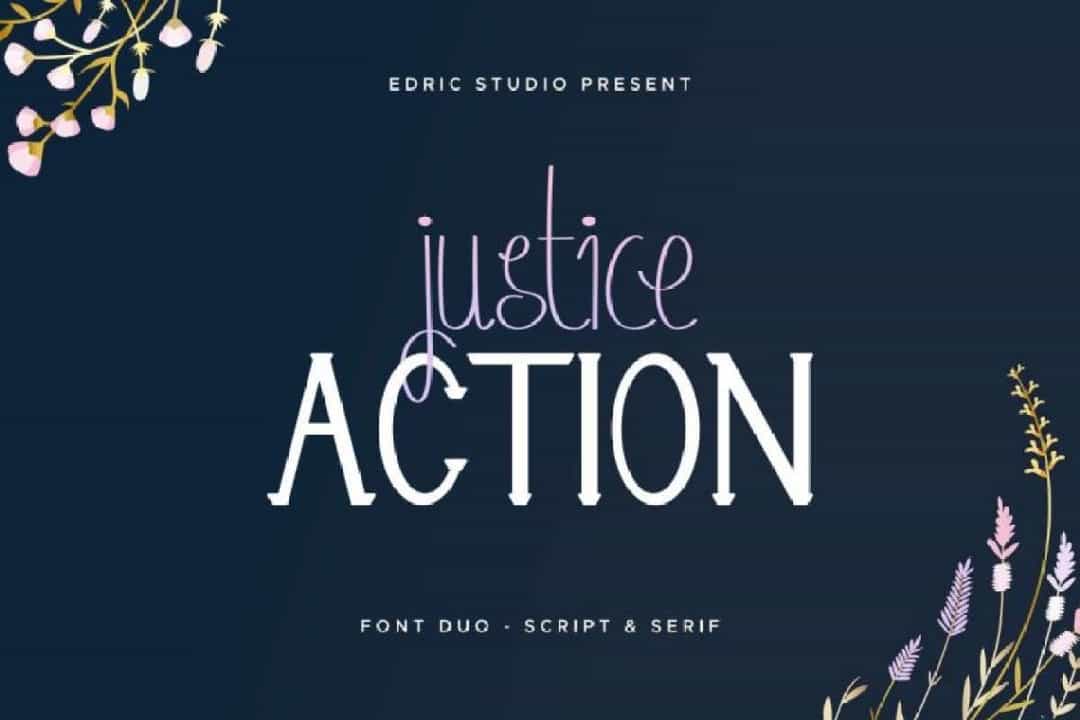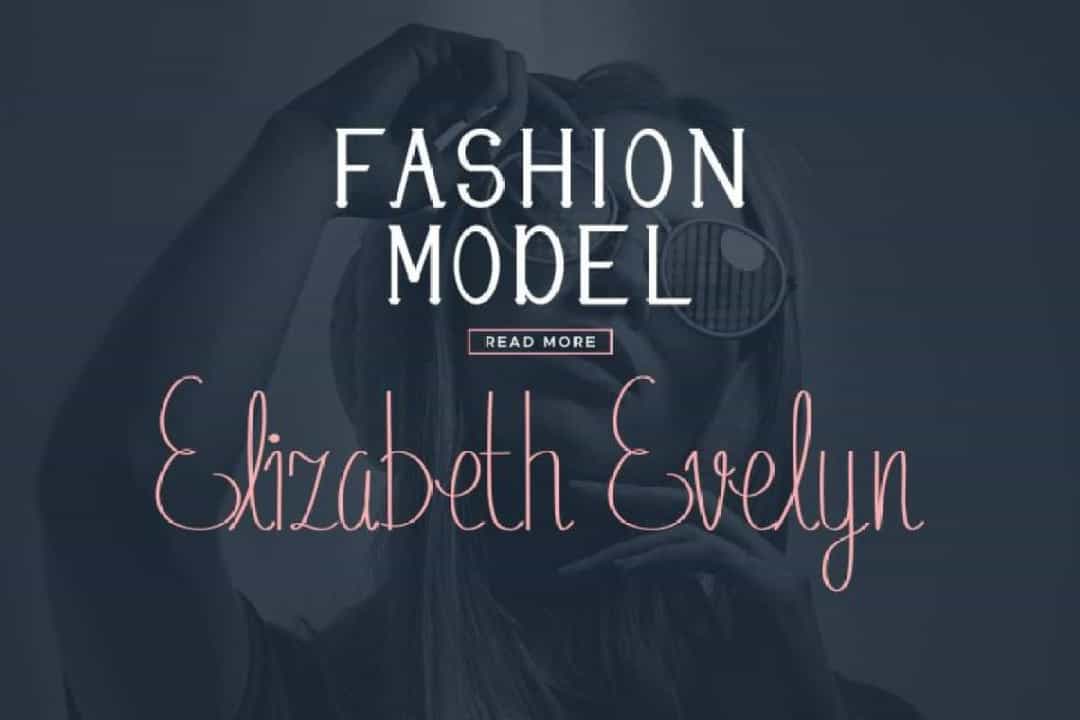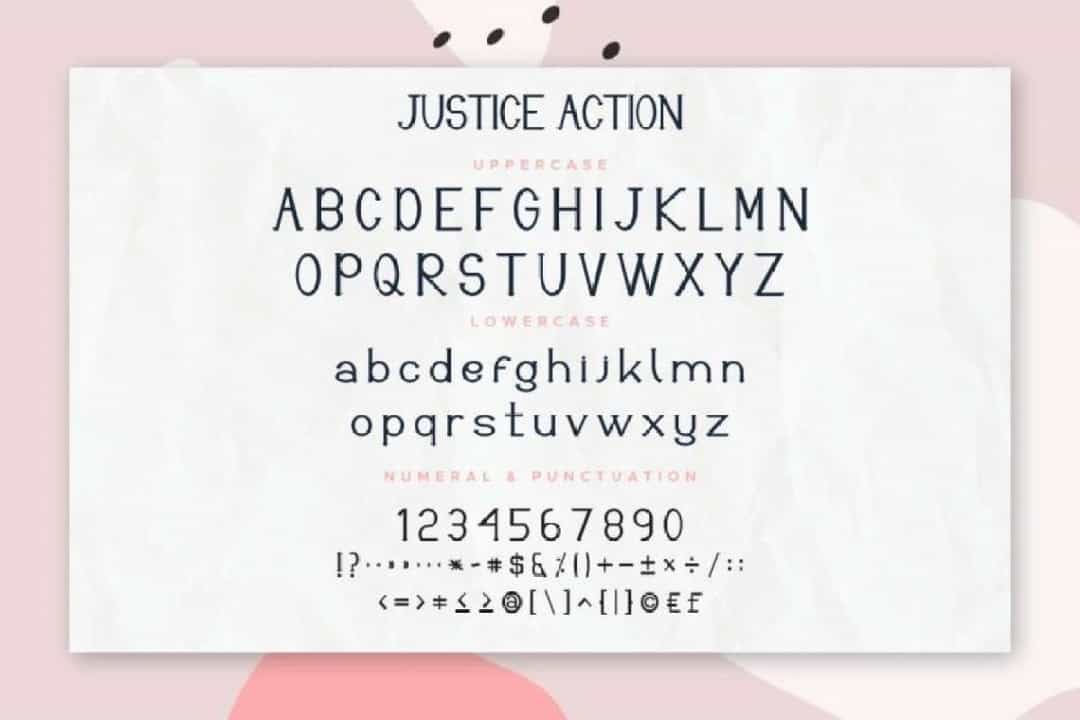
Discover Justice Action Font Duo, part of the Serif Script collection—a versatile and unique font perfect for adding a personal touch to your projects. Download it for free and enjoy crafting designs with style, from invitations to social media posts. This font is available exclusively for personal use, giving you the freedom to create without limits. Unlock your creativity with Justice Action Font Duo today!
Justice Action Font Duo, a sophisticated modern pair of serif and script fonts. Modern, stylish and elegant touch, as well as an expressive script font, Justice Action Font offers beautiful typographic harmony to your design projects, such as logos and wedding designs, branding and advertisements, social media posts as well as apparel design, tag and designs for products.